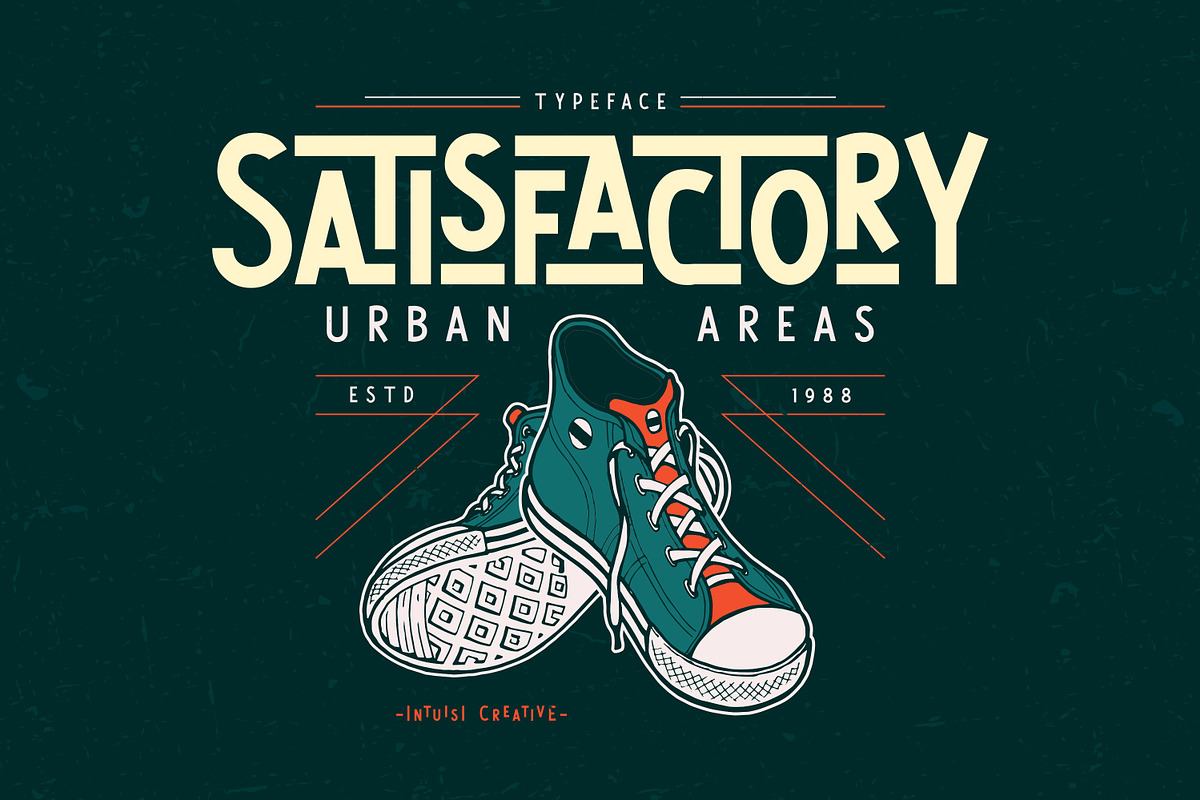
Satisfactory Summer and Vintage Fonts Free Download is a unique and stylish font bundle that blends modern aesthetics with timeless vintage charm. Featuring two complementary fonts, Satisfactory Summer offers a fresh and contemporary look, while Vintage brings a touch of nostalgia with its classic design. This dynamic combination is perfect for creating stylish logos, retro branding, invitations, posters, and more. Whether you're working on a summer-themed project, a vintage-inspired design, or a creative campaign, Satisfactory Summer and Vintage Fonts Free Download allows you to experiment with both fonts in personal projects before purchasing a commercial license. Add versatility and personality to your designs with this beautifully crafted font duo that effortlessly combines modern and vintage elements.